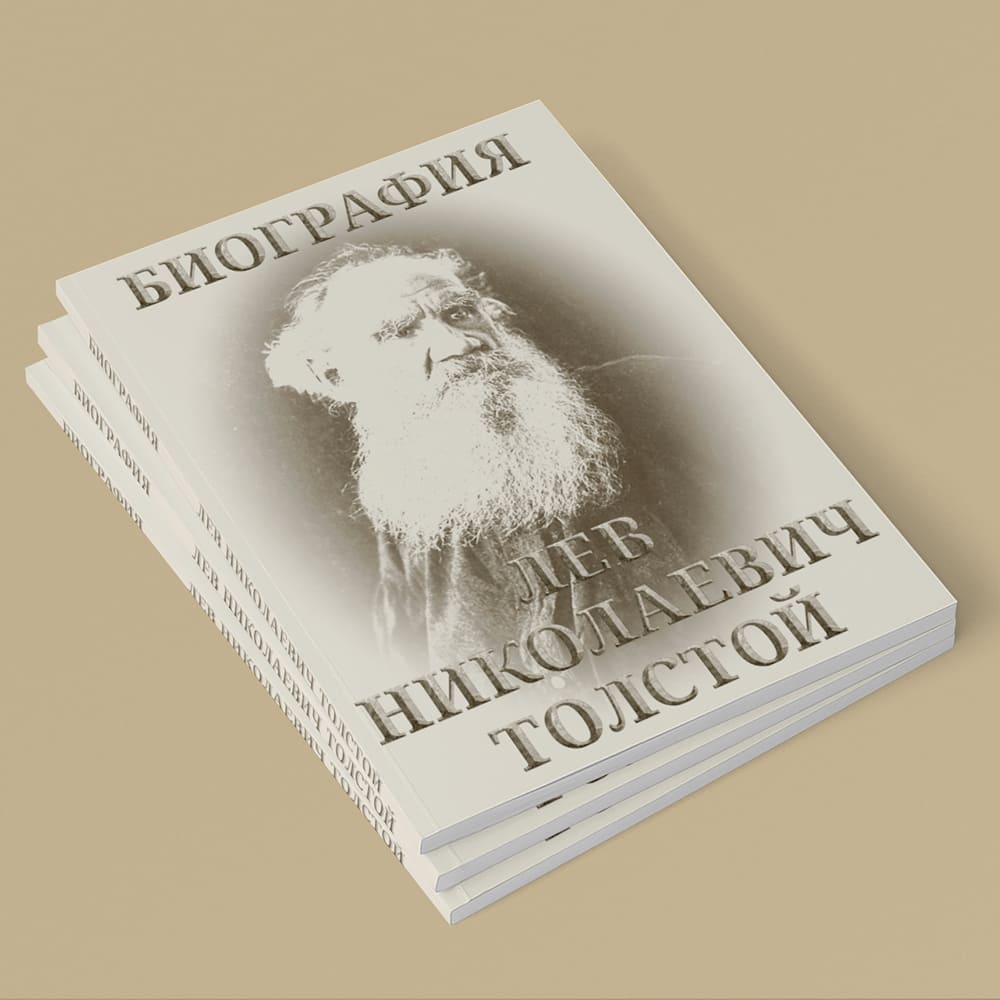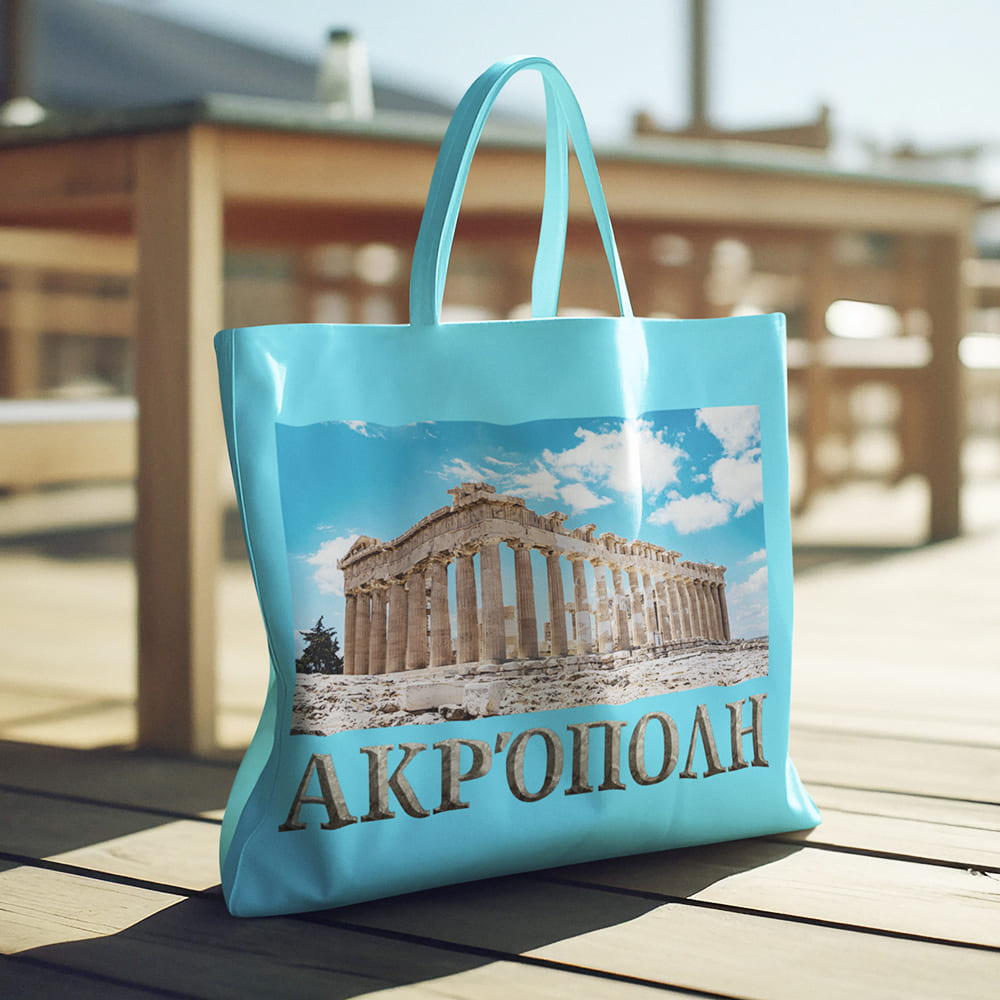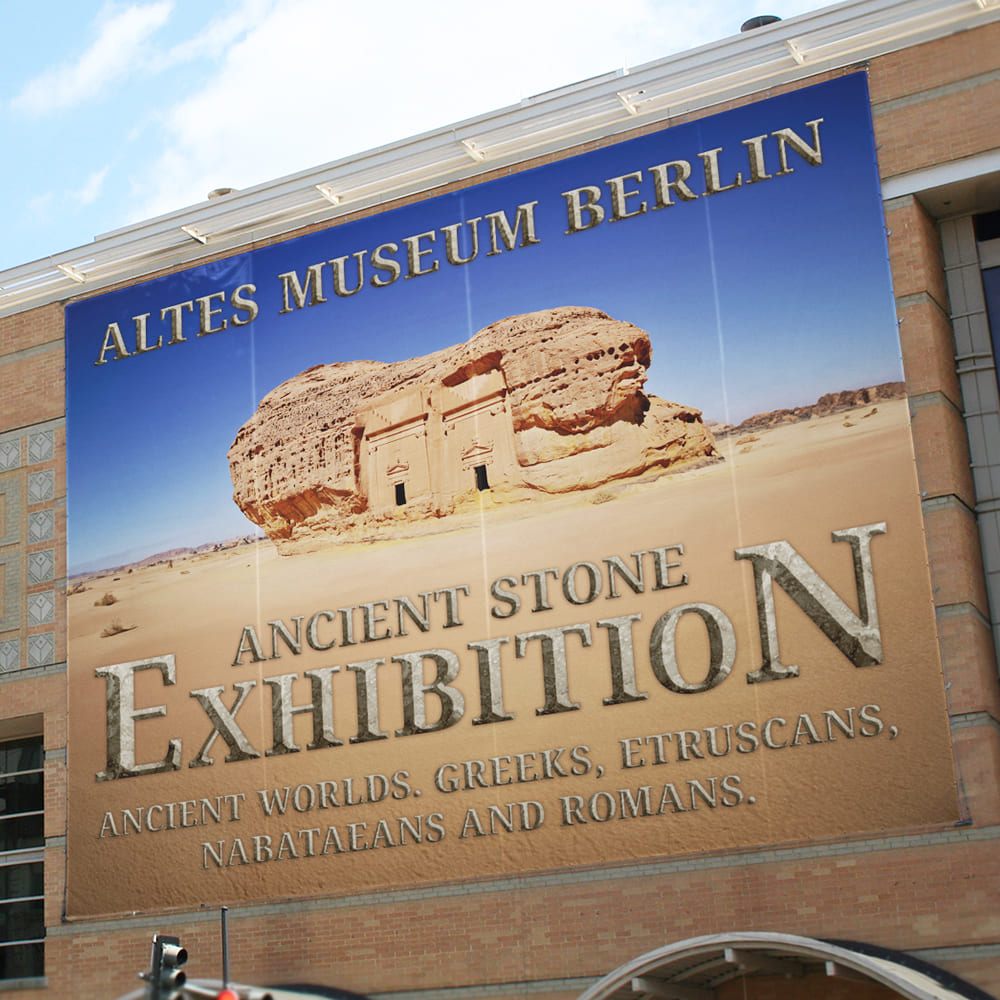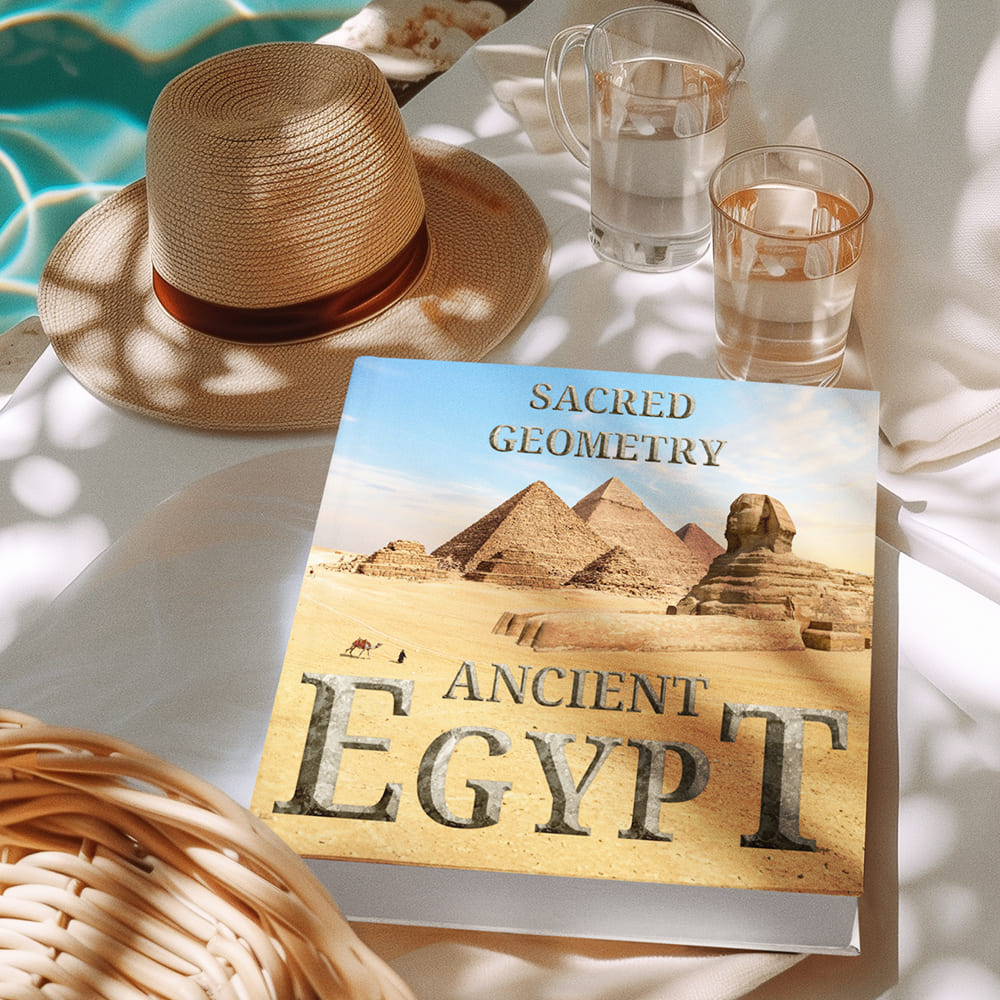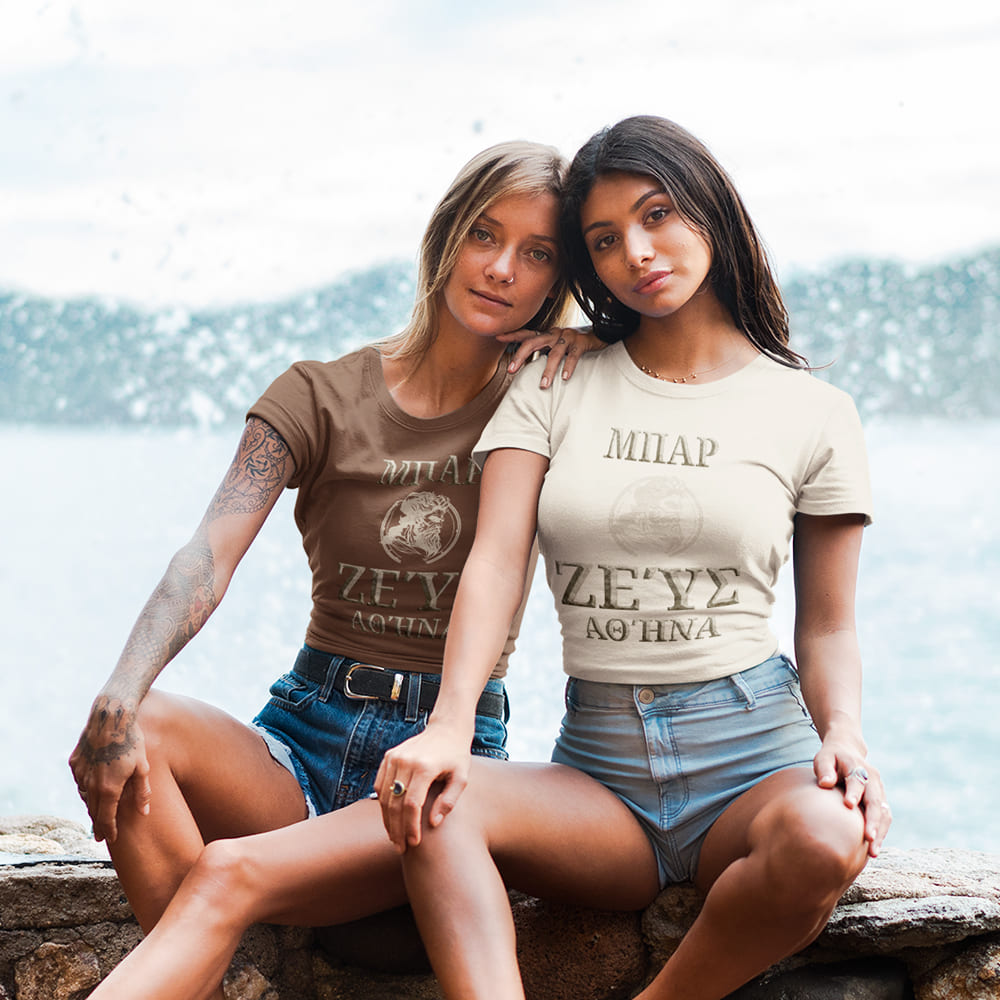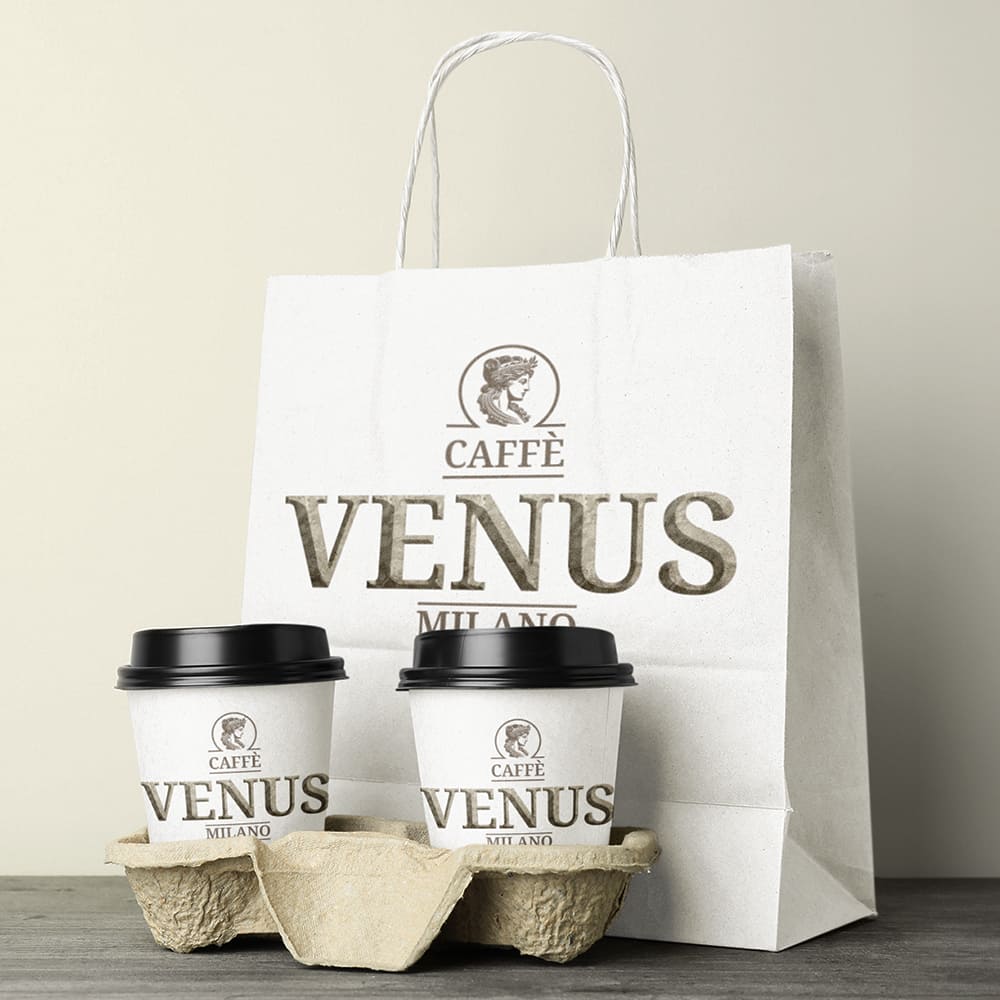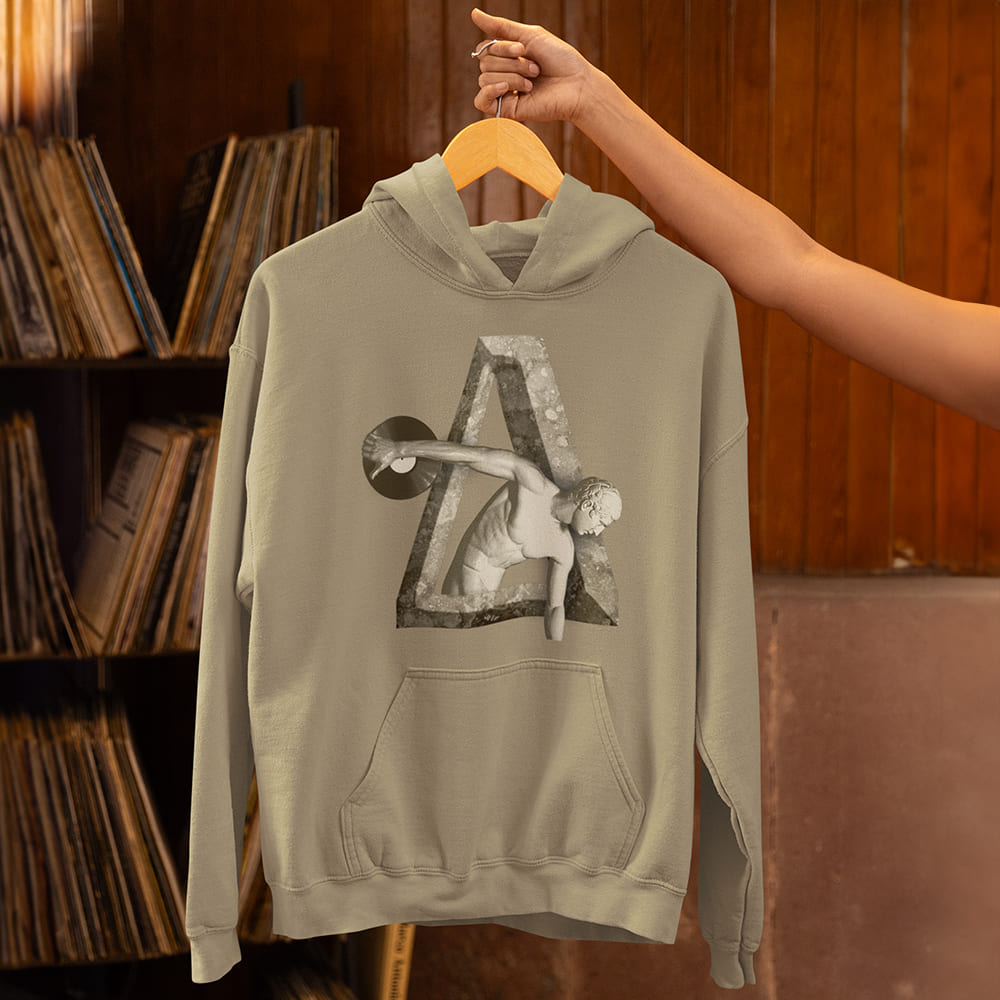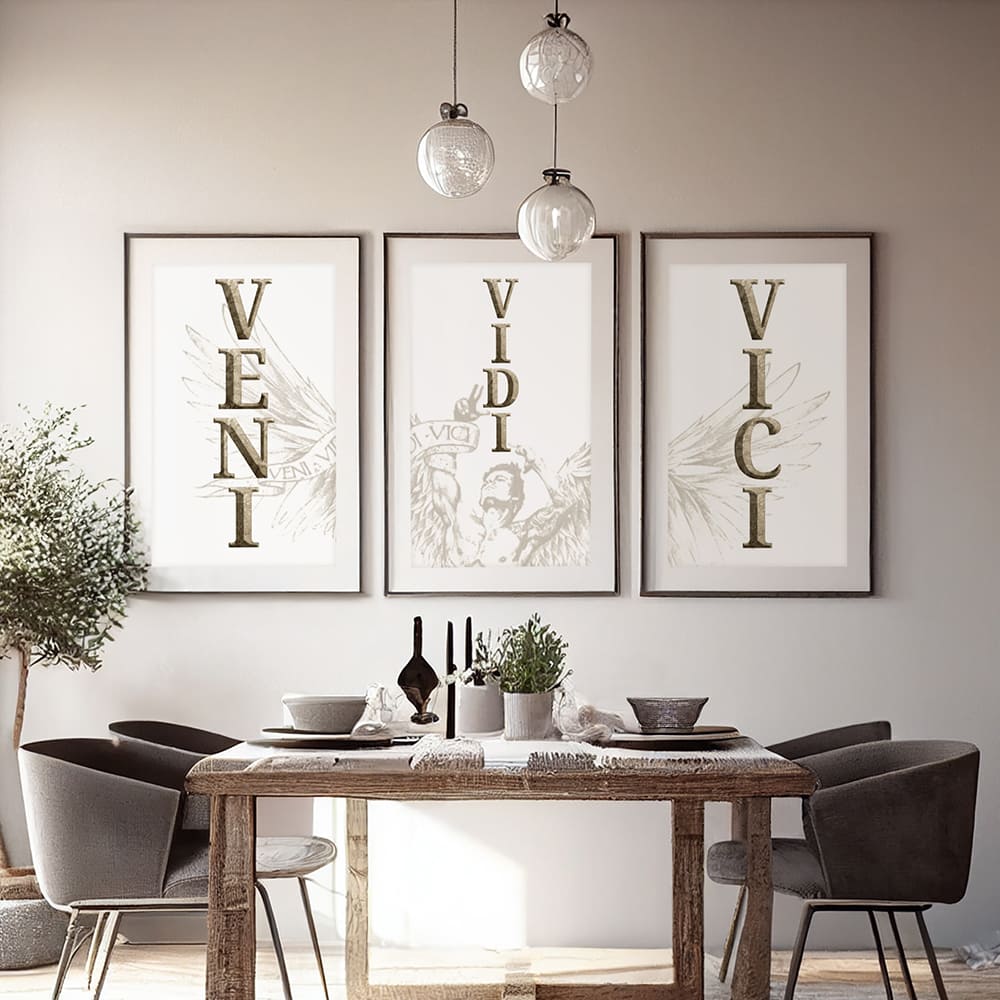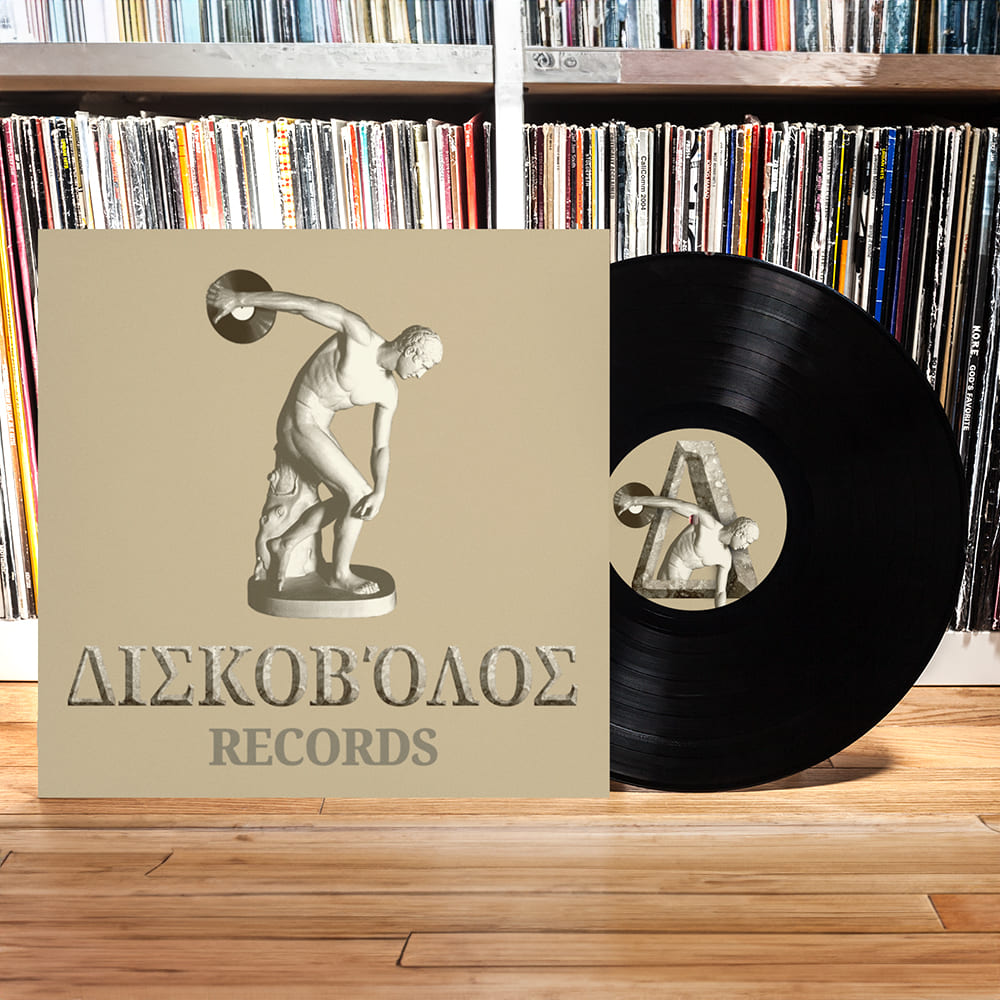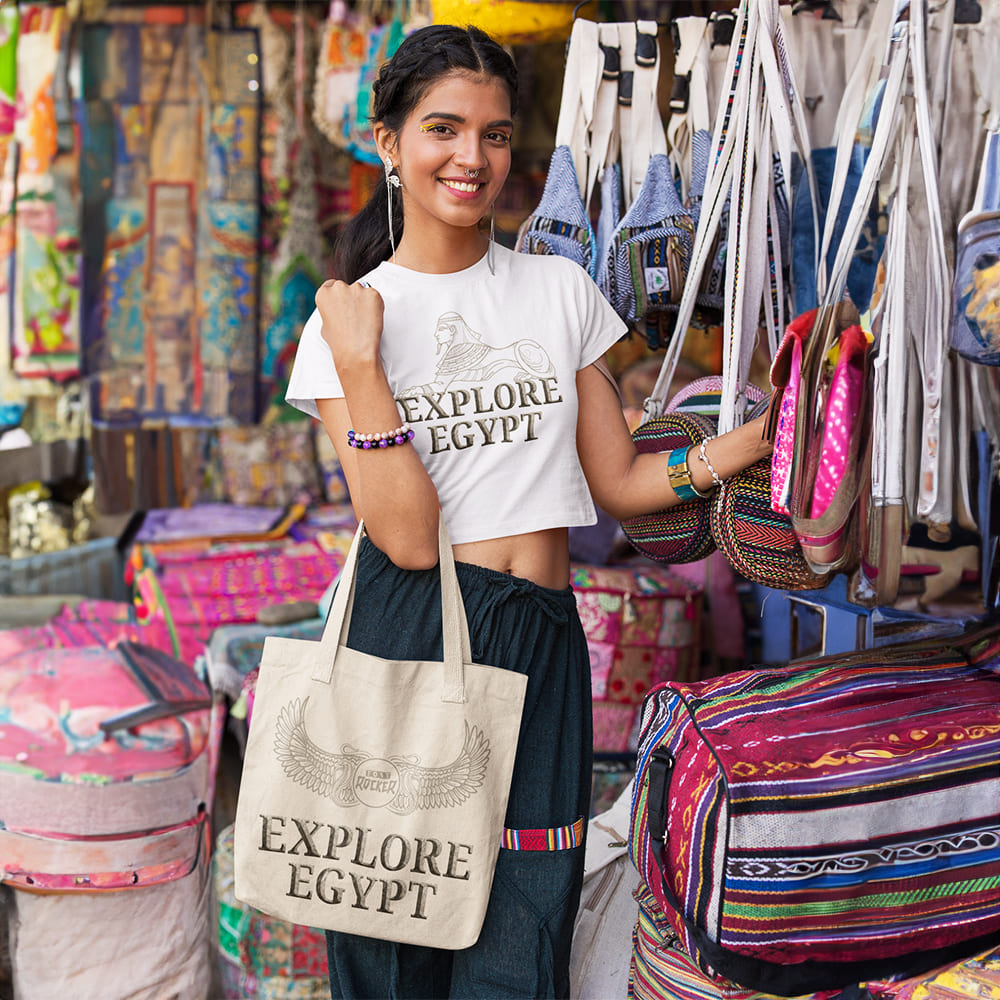
Ancient Stone Font
Timeless Power for Your Branding πΏβοΈπΊ
In a constantly changing world, few things are as powerful and enduring as an engraving in stone. The Ancient Stone Font brings this timeless energy into your design β perfect for brands seeking authentic strength and historical symbolism.
Why Choose Ancient Stone Font?
πΉ Strong and monumental β The Ancient Stone Font exudes power, endurance, and timeless authority. Perfect for branding projects that aim for epic impact.
πΉ Ancient elegance meets modern aesthetics β This font blends the calm strength of the past with a contemporary flair. Ideal for historical books, movie posters, or designs that crave symbolic depth.
πΉ For branding and monumental projects β Whether it's websites, social media, or print designs, the Ancient Stone Font brings timeless presence to any project.
Make a Statement with Ancient Stone Font
Give your design the powerful history of ancient monuments and symbolic depth. The Ancient Stone Font helps your brand stand out through historical presence and authentic symbolism.
πΉ Make a powerful statement β Let the power of ancient inscriptions speak through your design.πΉ Choose legendary. Choose timeless. Choose Ancient Stone Font.